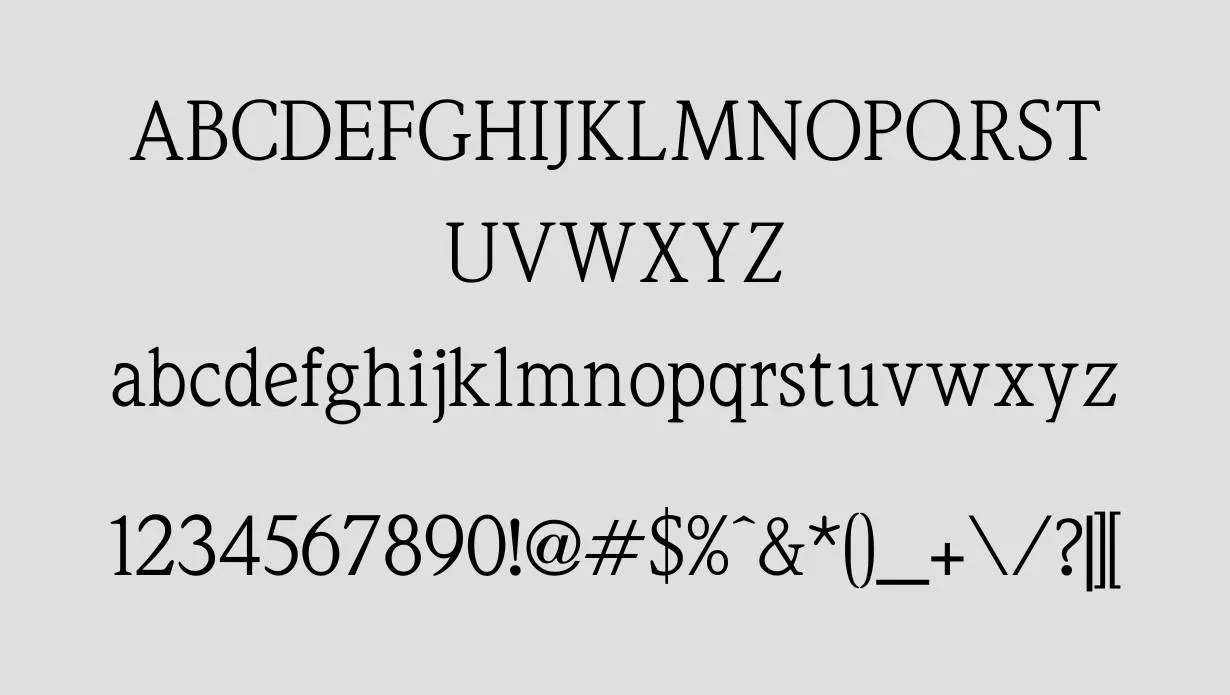
ITC Weidemann Font is a classic and elegant typeface often chosen for formal invitations, editorial design, and branding.
With its well-proportioned letterforms and traditional style, it conveys a sense of sophistication and tradition, making it a preferred choice for projects with a touch of elegance.
| Designer | Kurt Weidemann |